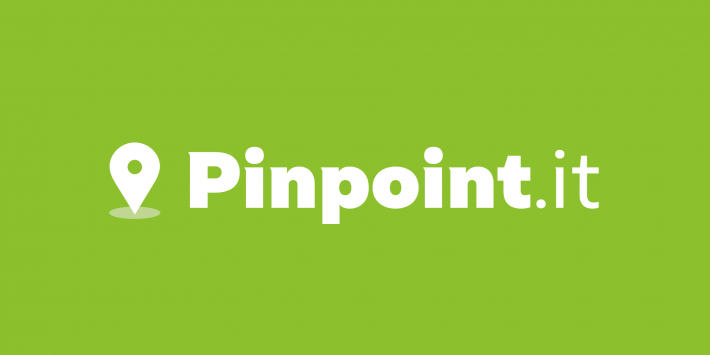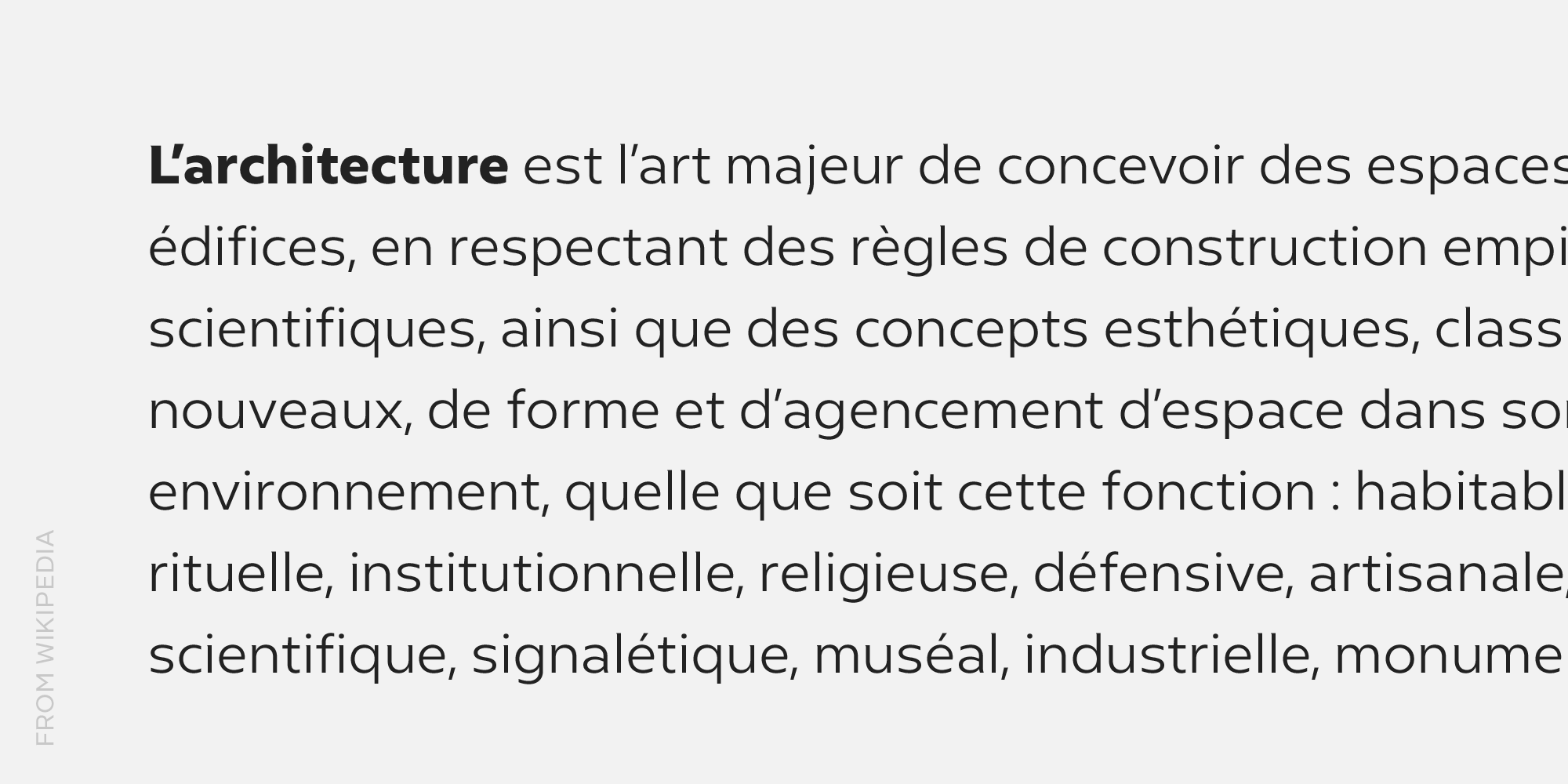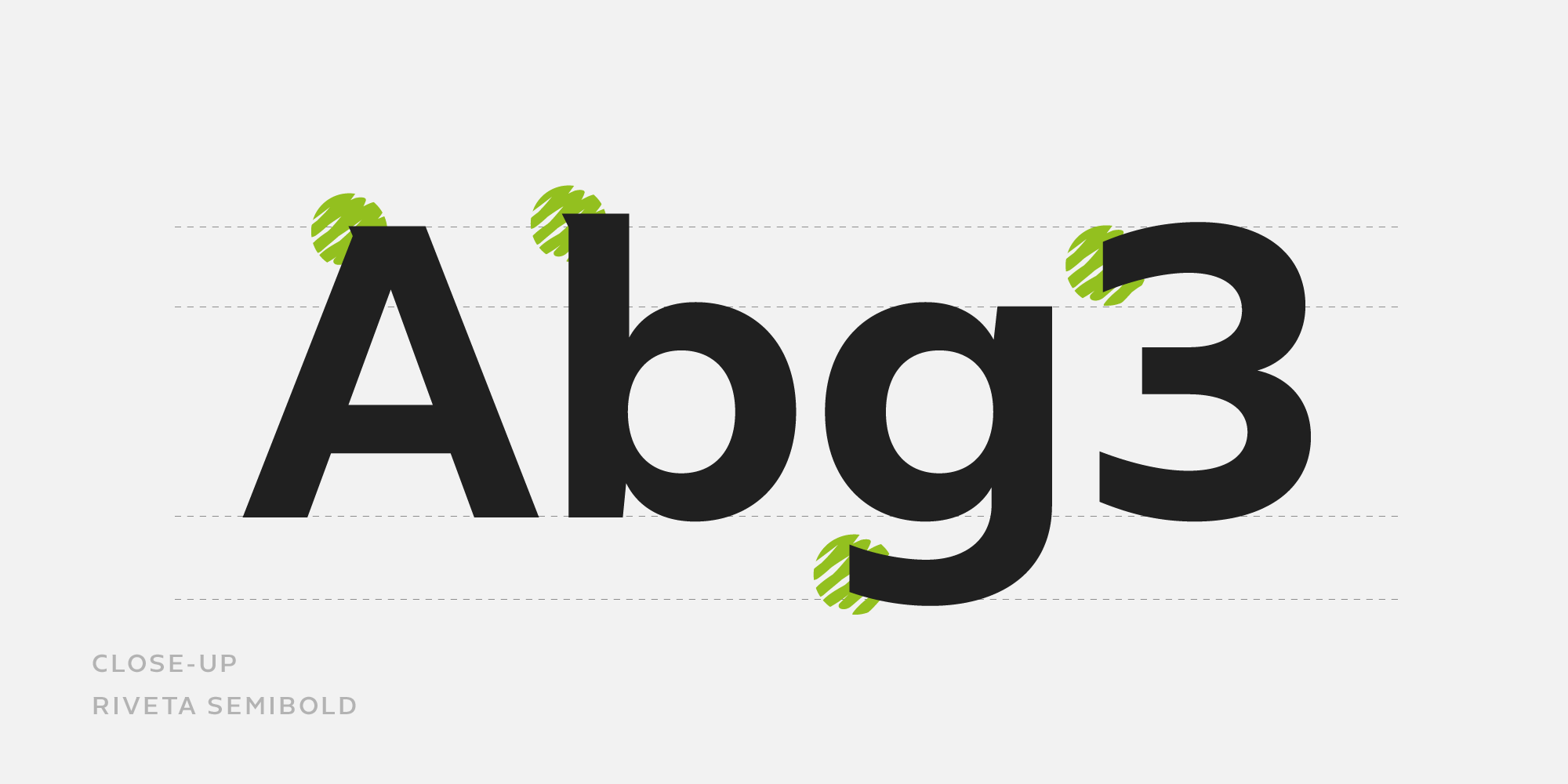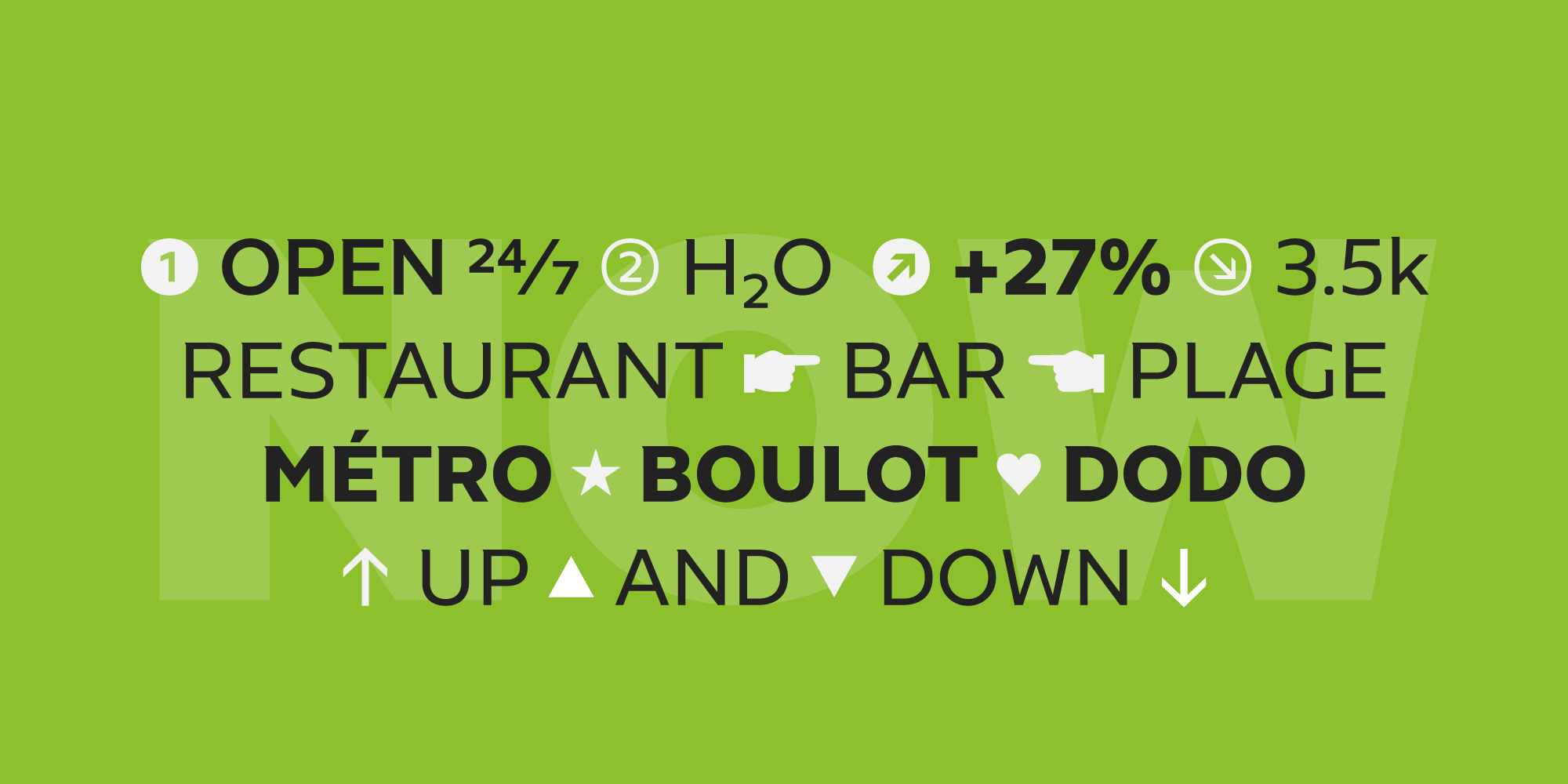
Riveta
- Joel Carrouche
- sans serif
Riveta is equipped for advanced typography, with features such as ligatures, tabular and proportional figures, arrows and icons, stylistic alternates, case-sensitive forms, fractions, scientific inferiors and superiors, and circled figures.
Designed by: | Joel Carrouche | |
Classification: | Sans Serif | |